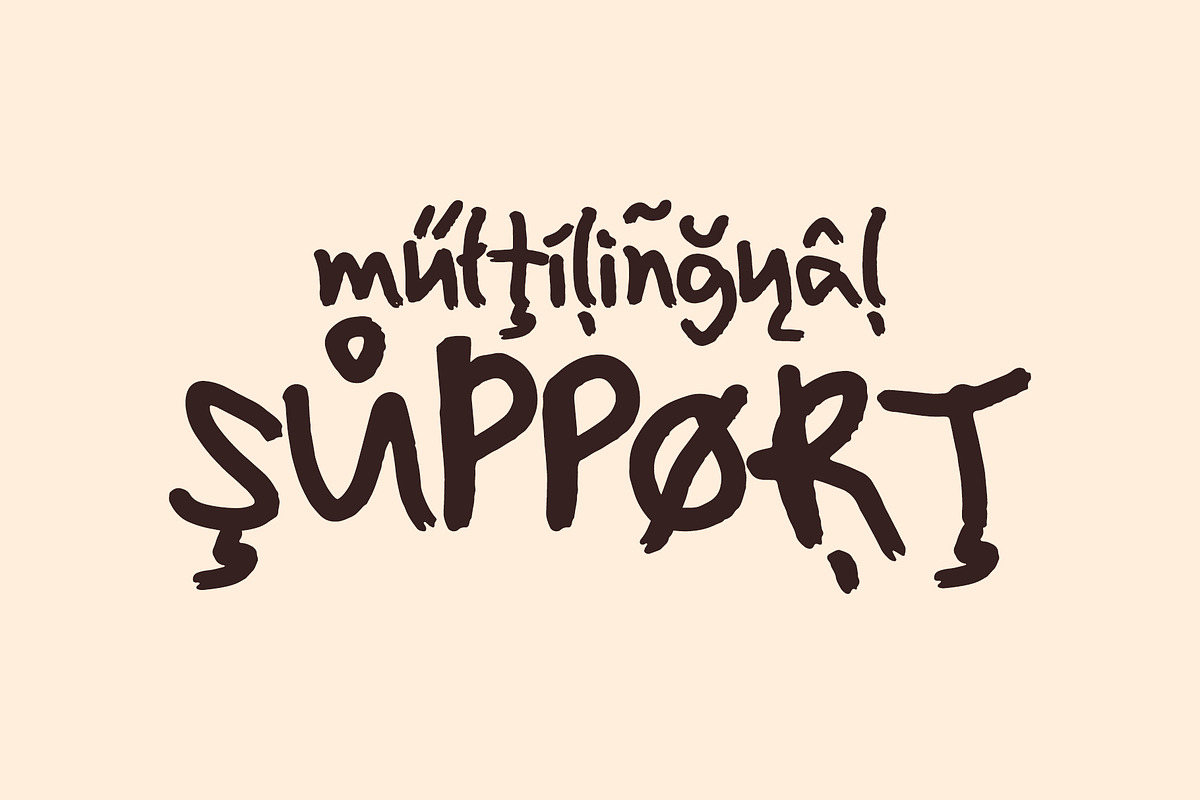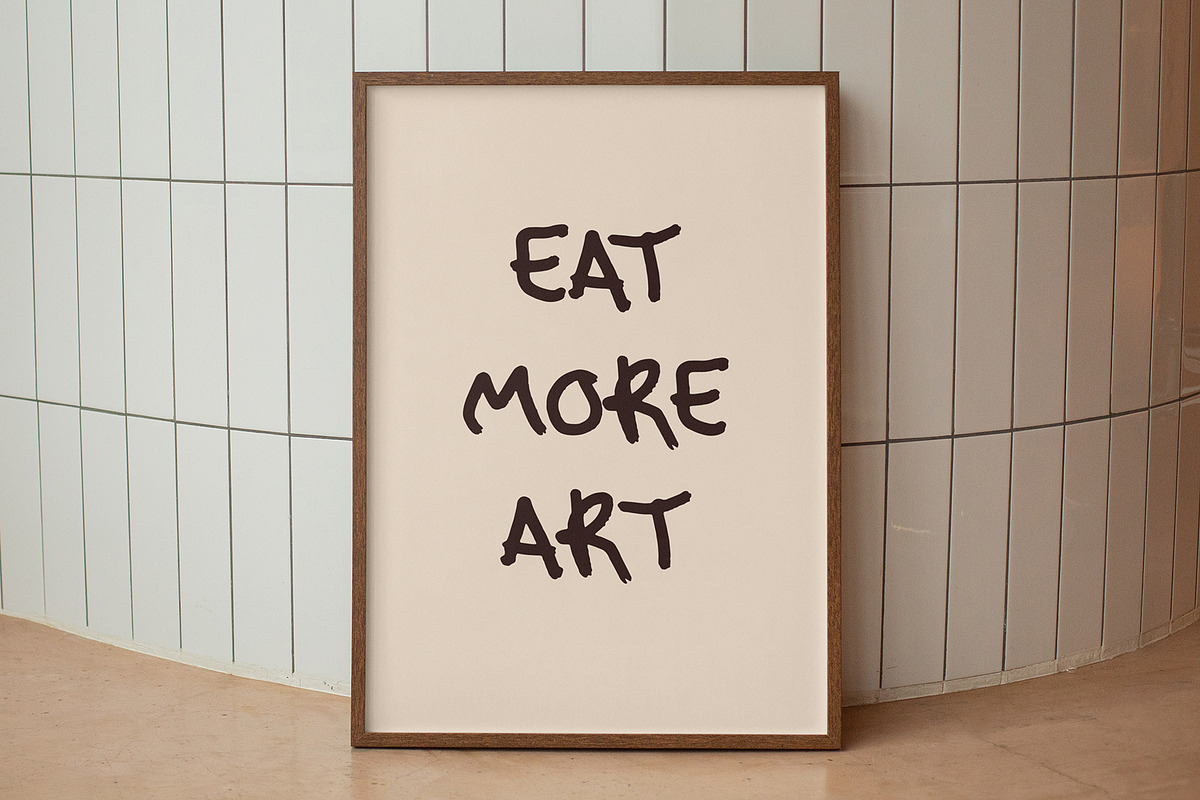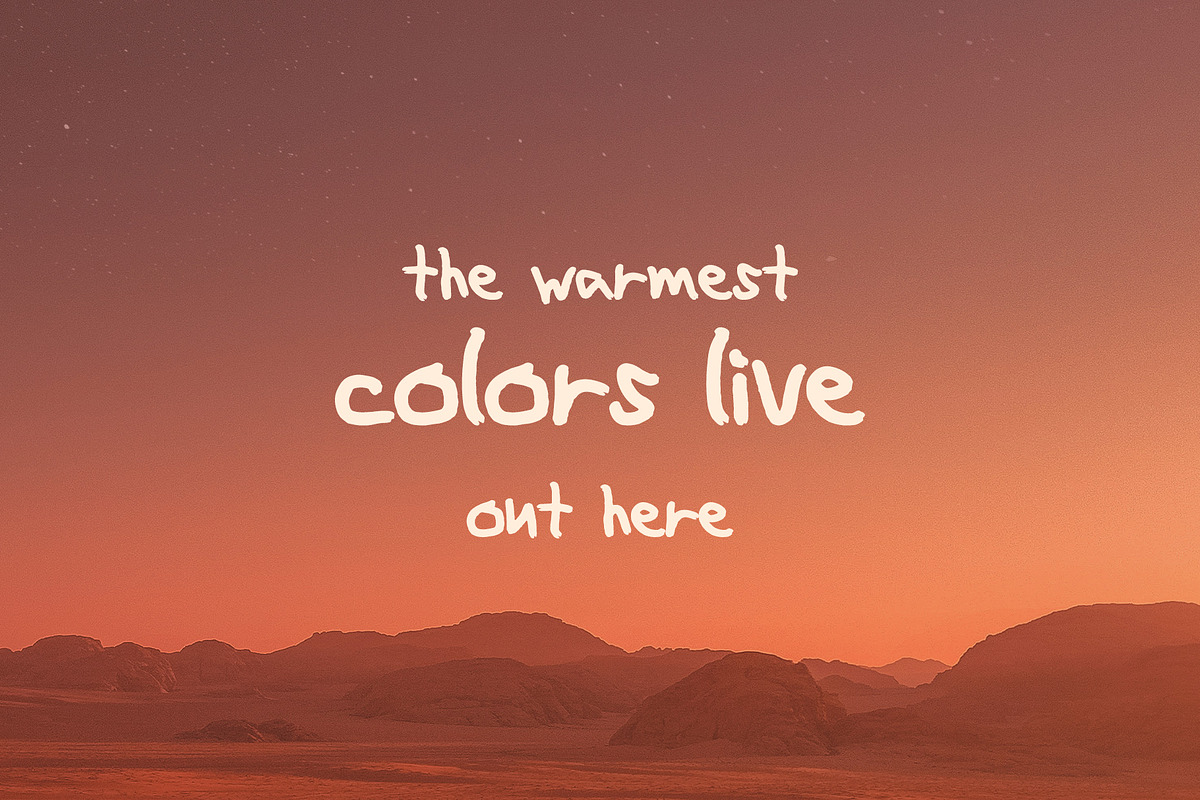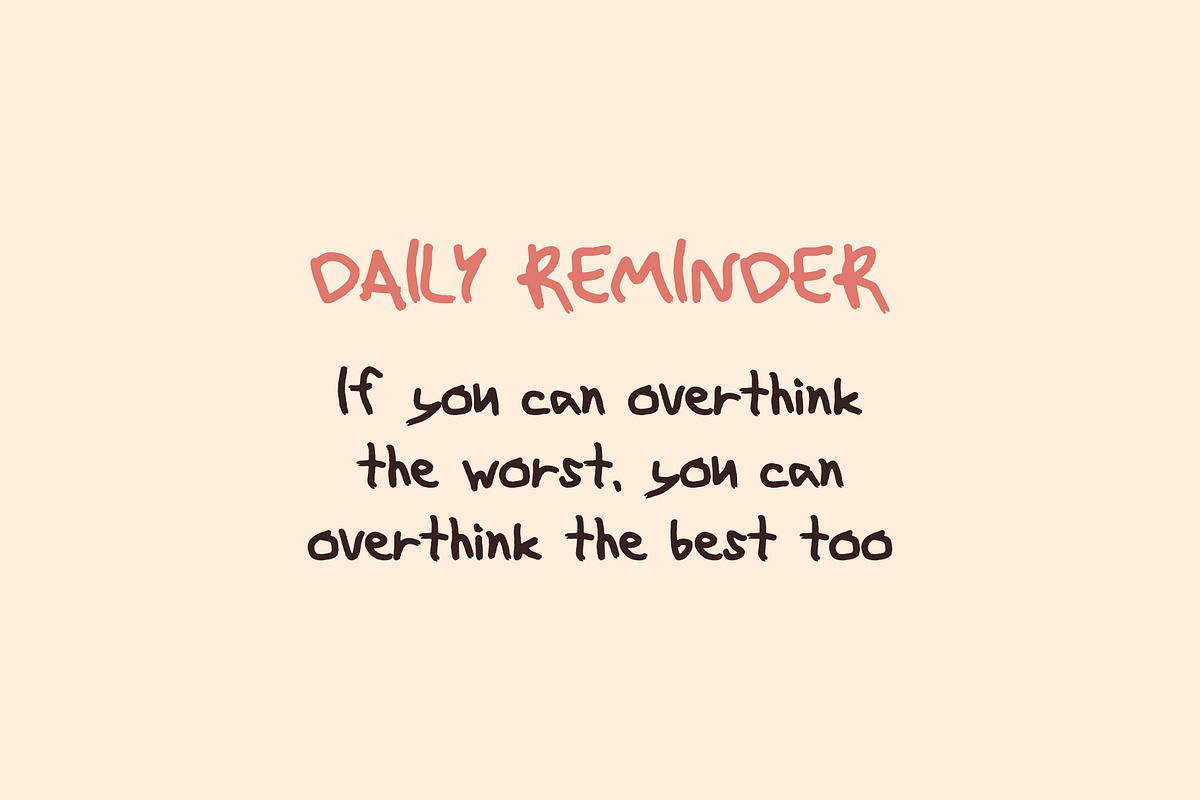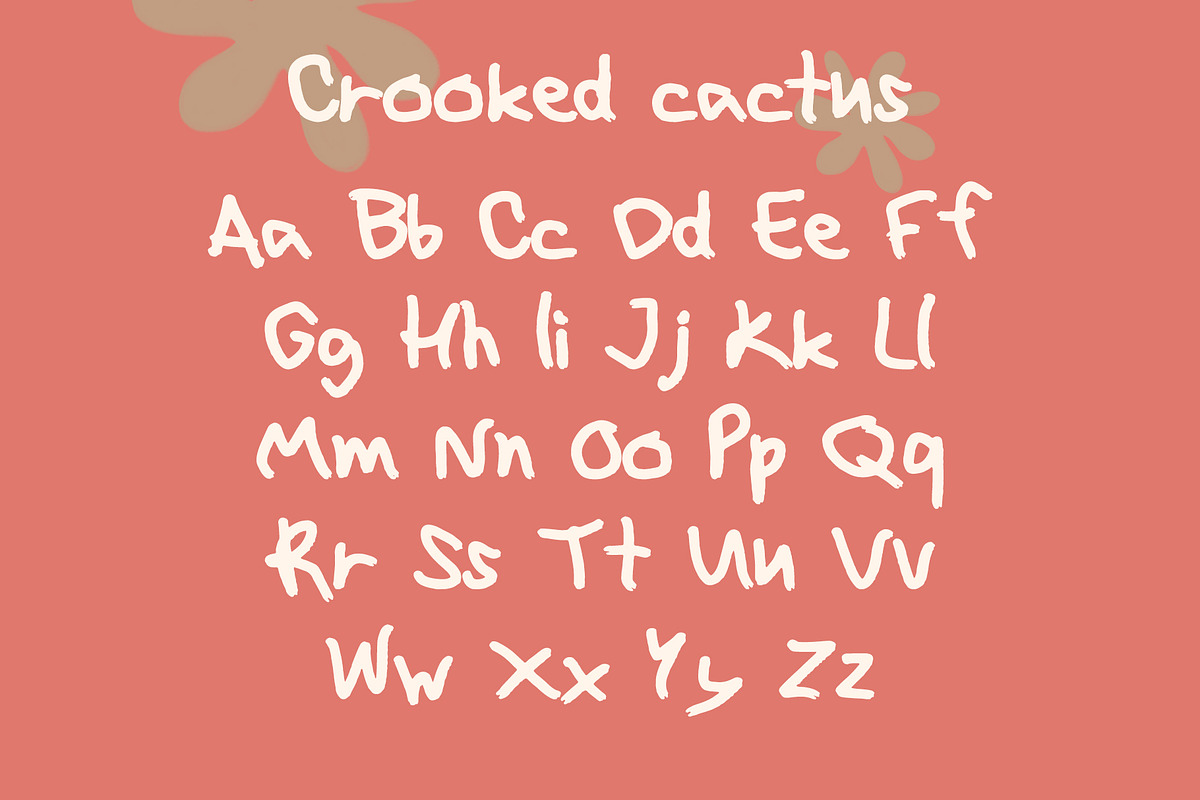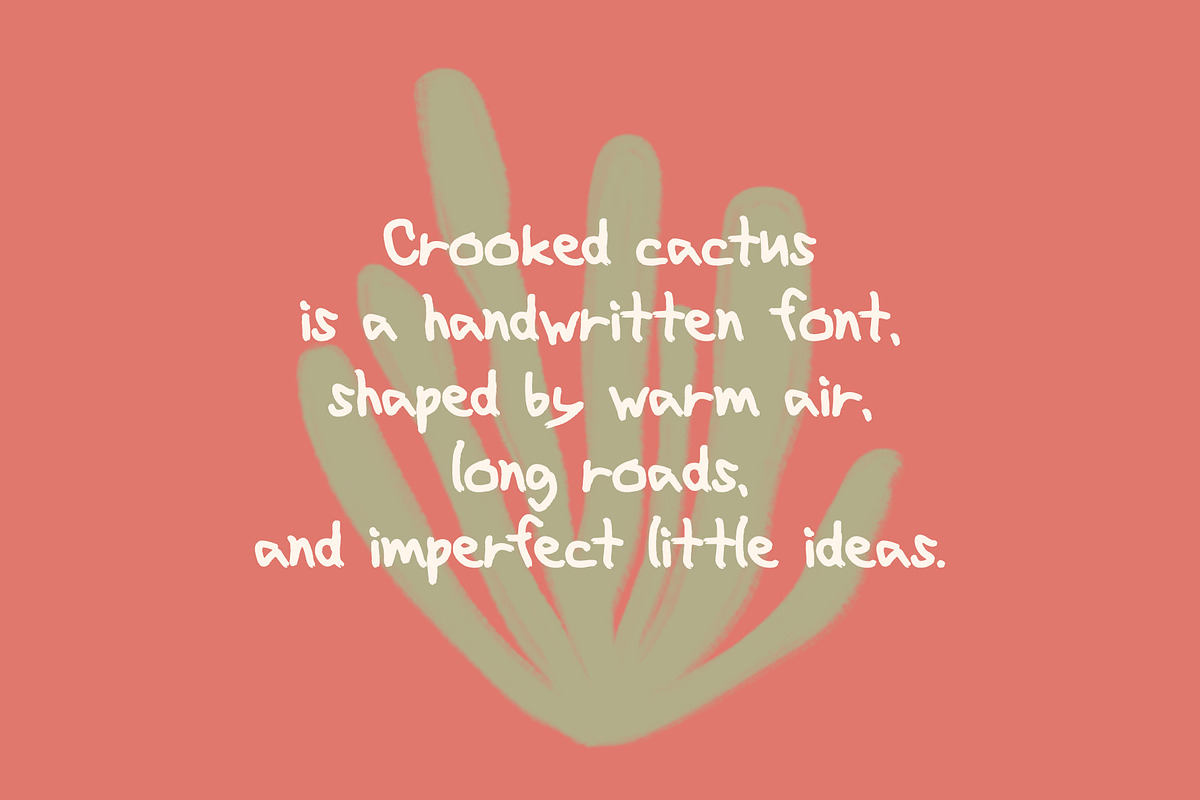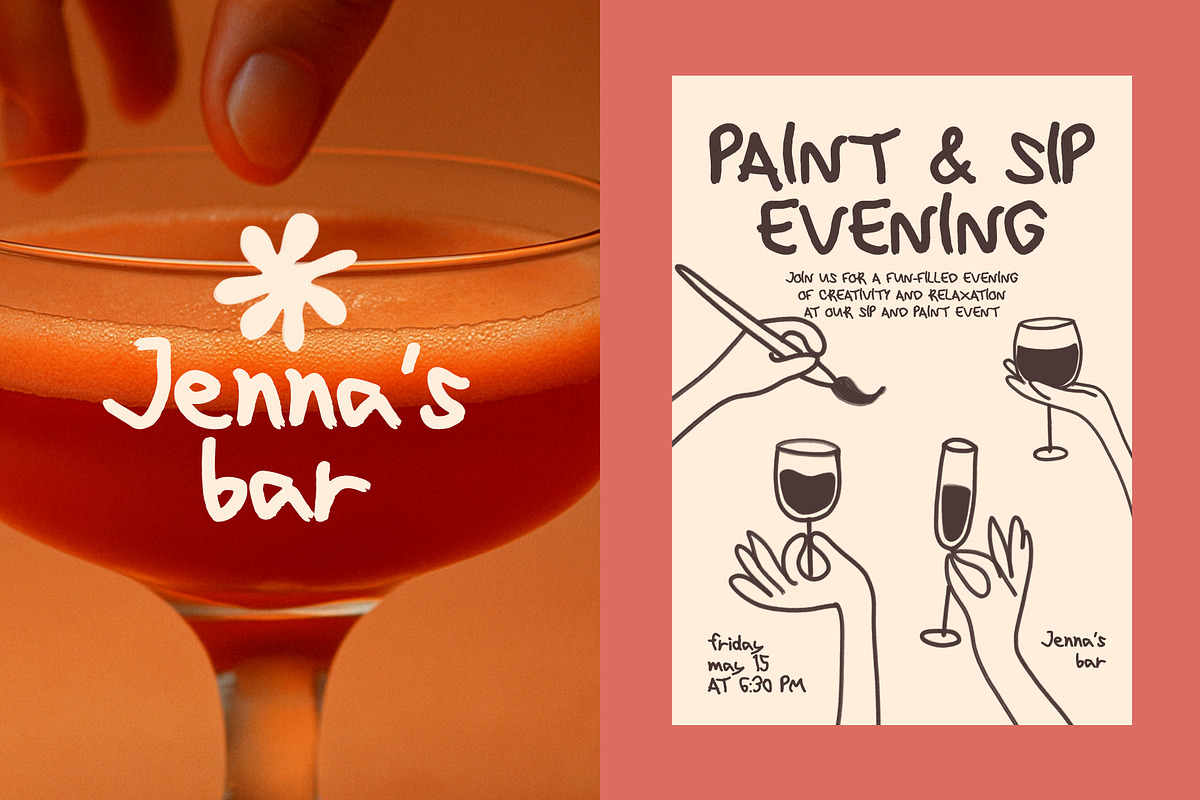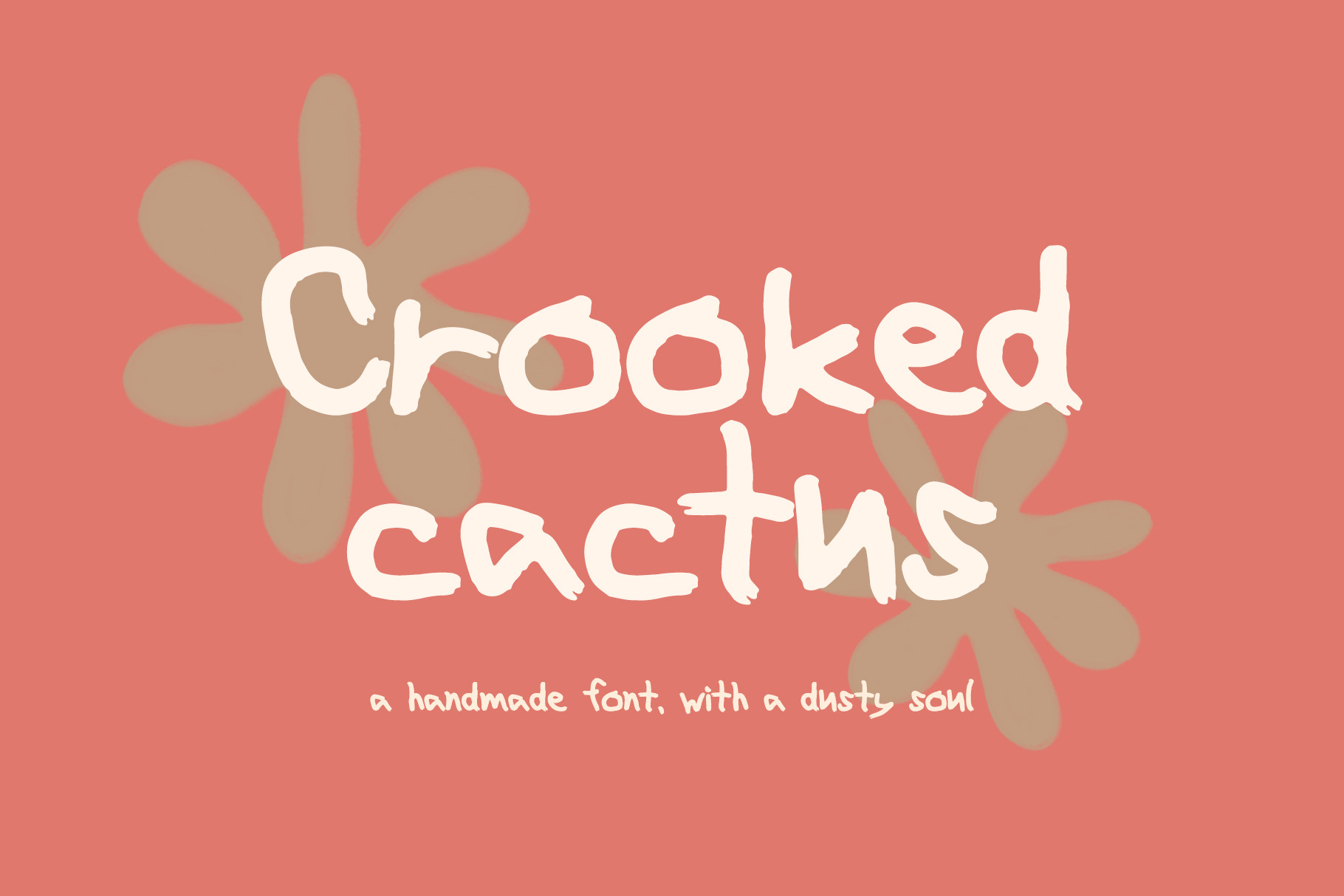
Crooked cactus handmade font
Crooked Cactus is a playful handmade font with a warm, dusty feel. Inspired by sun-faded colors, desert air, and imperfect little details, it brings an easy, relaxed character to any design. Its uneven shapes and natural rhythm make it a great fit for branding, packaging, posters, social media, quotes, greeting cards, and other creative projects that need a soft and expressive touch. Perfect for designs that feel warm, casual, slightly rustic, and full of personality.
Crooked Cactus Font Features:
- Full Set of standard alphabet and punctuation
- Multilingual Characters AÁĂÂÄÀĀĄÅÃÆBCĆČÇĊDĎĐÐEÉĚÊËĖÈĒĘẼƏFGĞĢĠHĦIIJÍÎÏİÌĪĮĨ KĶLĹĽĻŁMNŃŇŅÑOÓÔÖÒŐŌØÕŒPÞQRŔŘŖSŚŠŞȘẞTŤŢȚUÚÛÜÙŰŪŲŮŨVWẂŴẄẀXYÝŶŸỲỸZŹ ŽŻꞋaáăâäàāąåãæbcćčçċdďđðeéěêëėèēęẽəfgğġhħiıíîï ìīįĩijjȷ kķlĺľļłmnńňņñoóôöòőōøõœpþqrŕřŗsśšşșßtťţțuúûüùűūųůũvwẃŵẅẁxyýŷÿỳỹzźžż